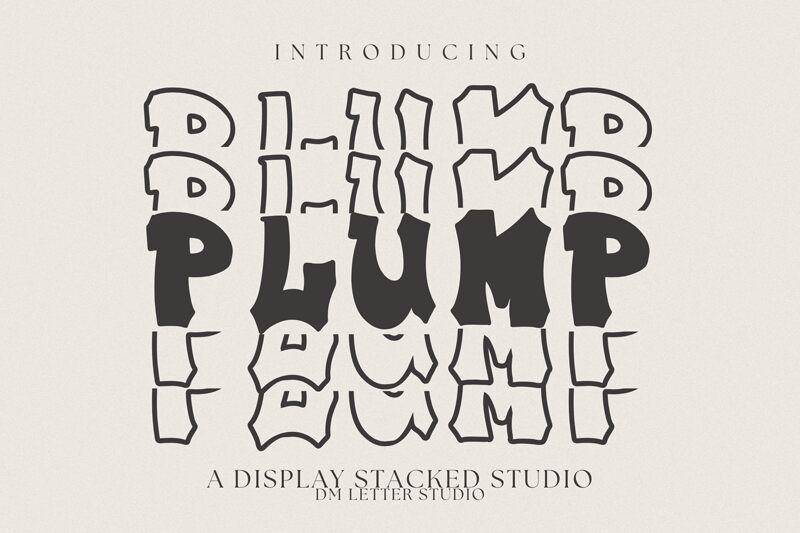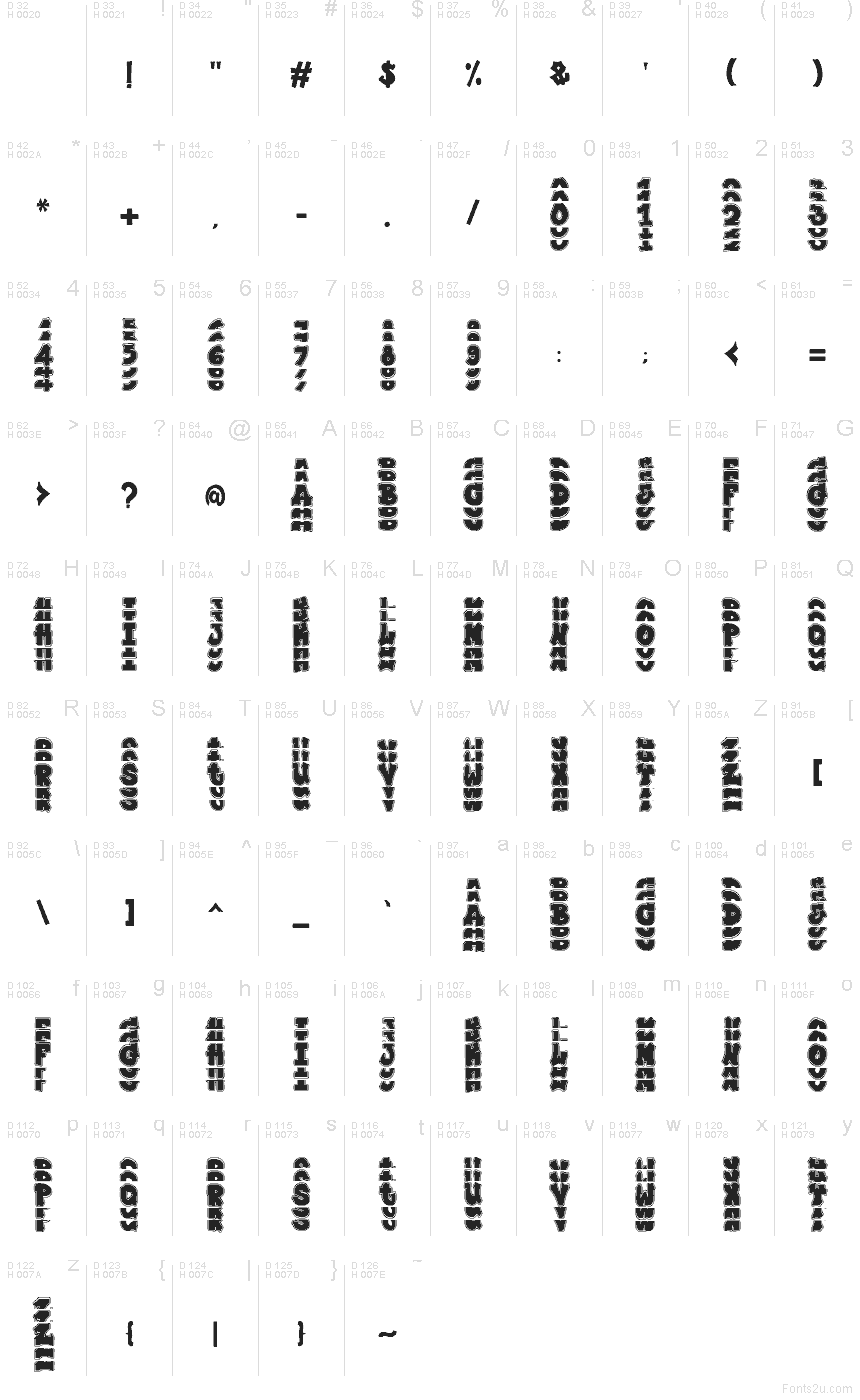
Plump Varsity Stacked
Plump Varsity Stacked font by DM Letter Studio - Dimas Prasetyo is a free varsity display typeface with thick, squishy letterforms and a bold stacked outline that feels straight off a game-day banner. Its Plump family curves are heavy, inky, and a little wobbly in the best way, like foam fingers and painted signs pressed into type. The layered, shadowed effect gives every word a loud, stadium-chant presence without needing extra illustration.
Using Plump Varsity Stacked, you can slam energy into sports posters, team merch, booster club graphics, pep-rally flyers, kids’ event branding, retro streetwear logos, and social media promos. This free font shines when it’s big and centered, letting the chunky outline do the talking. Pair it with a clean condensed sans for small supporting text so the main headline can stay bold, playful, and easy to read.